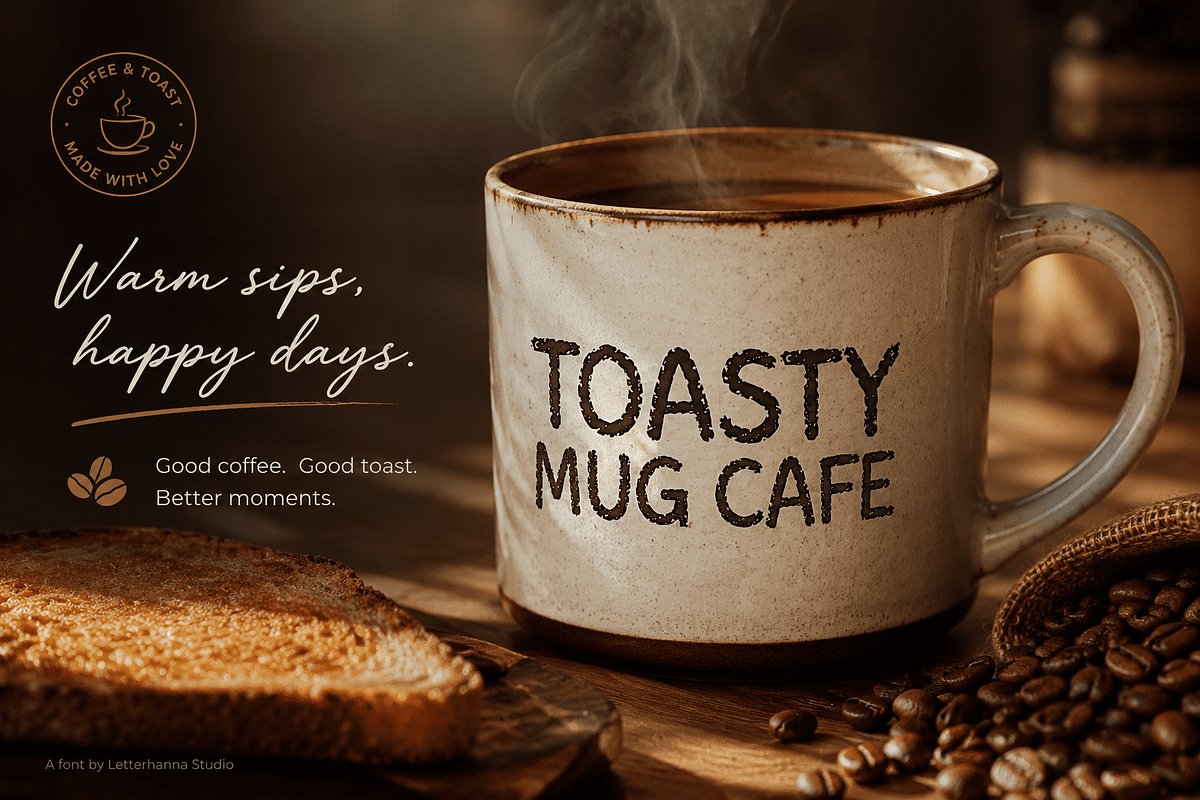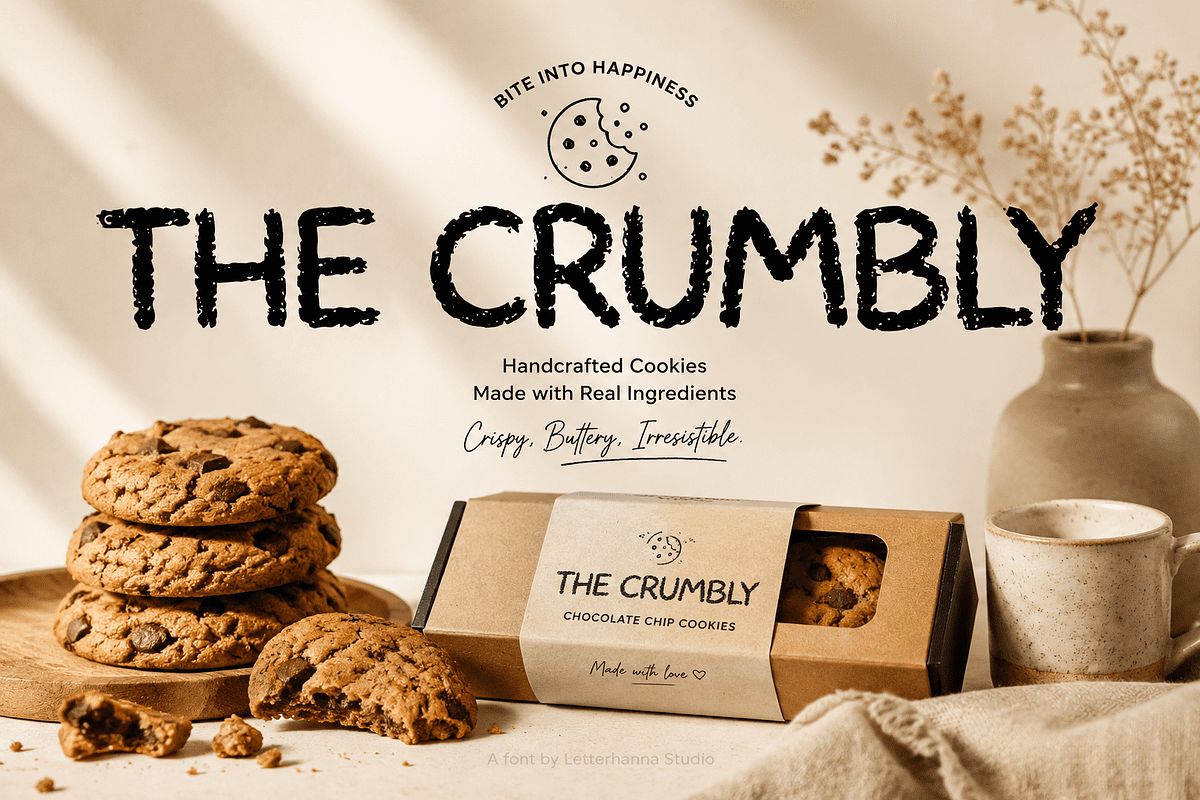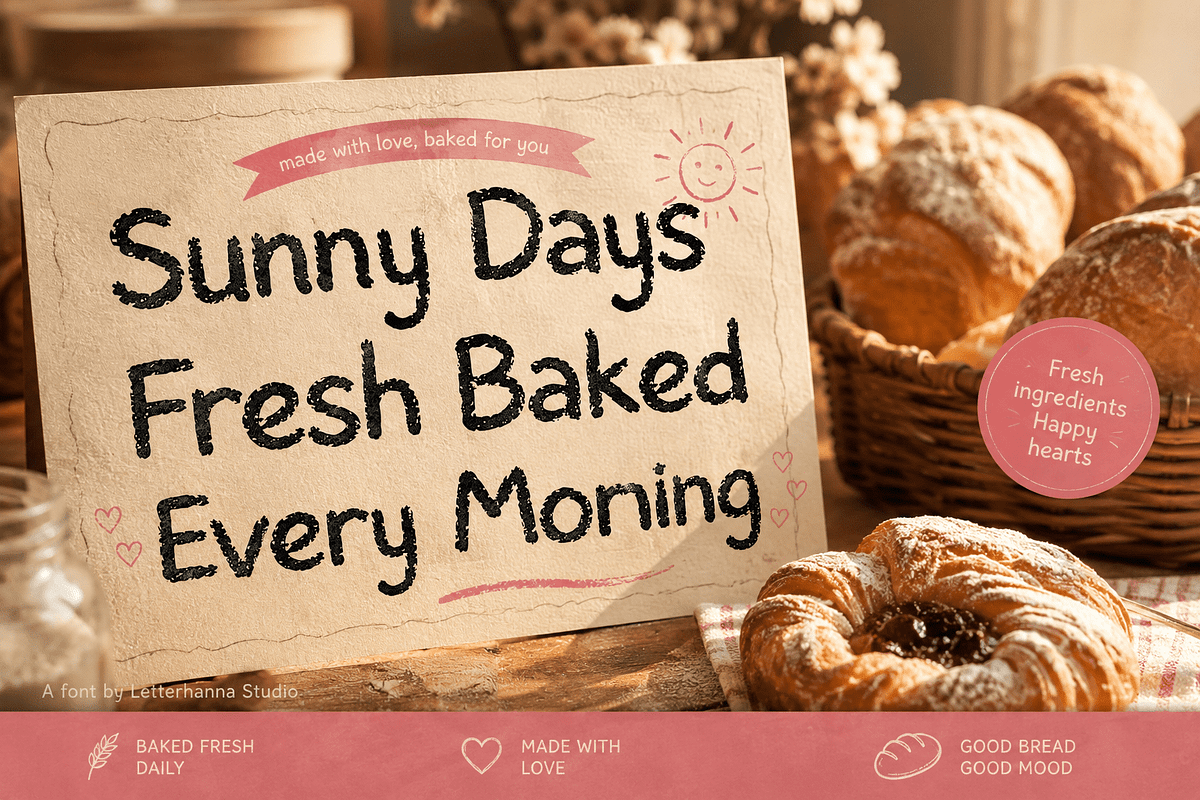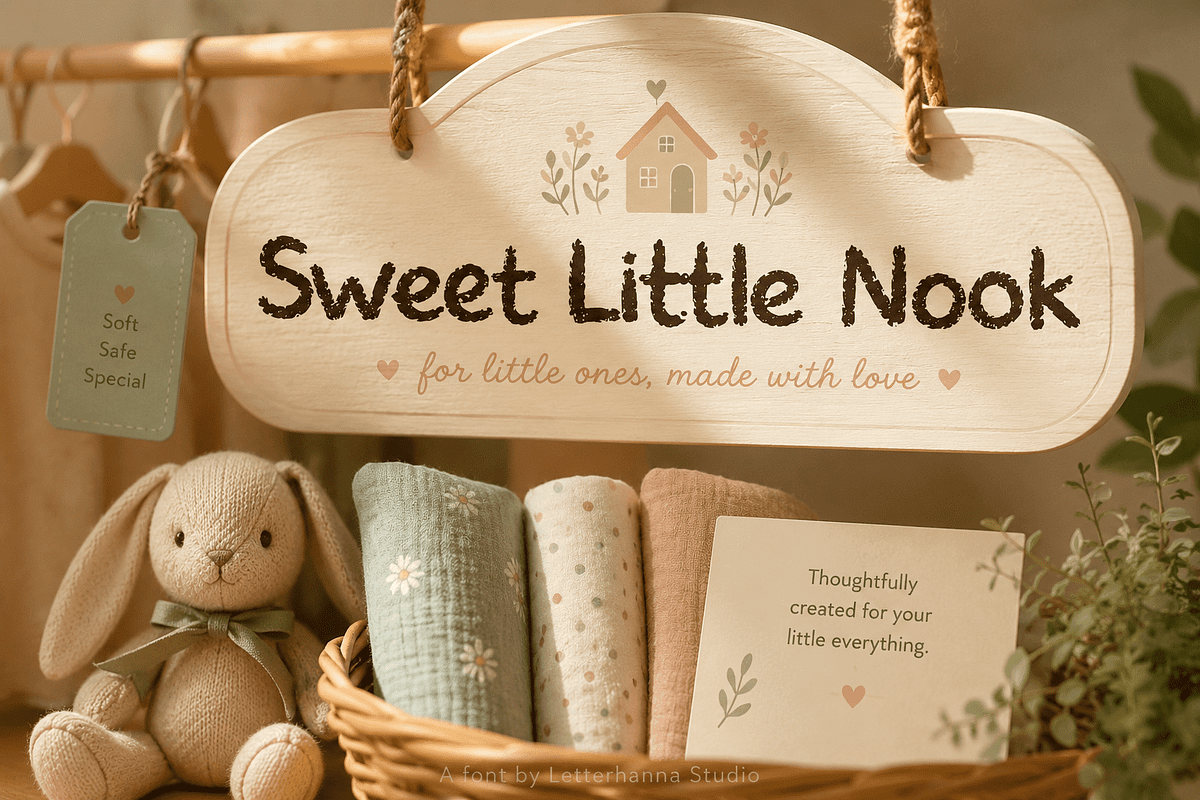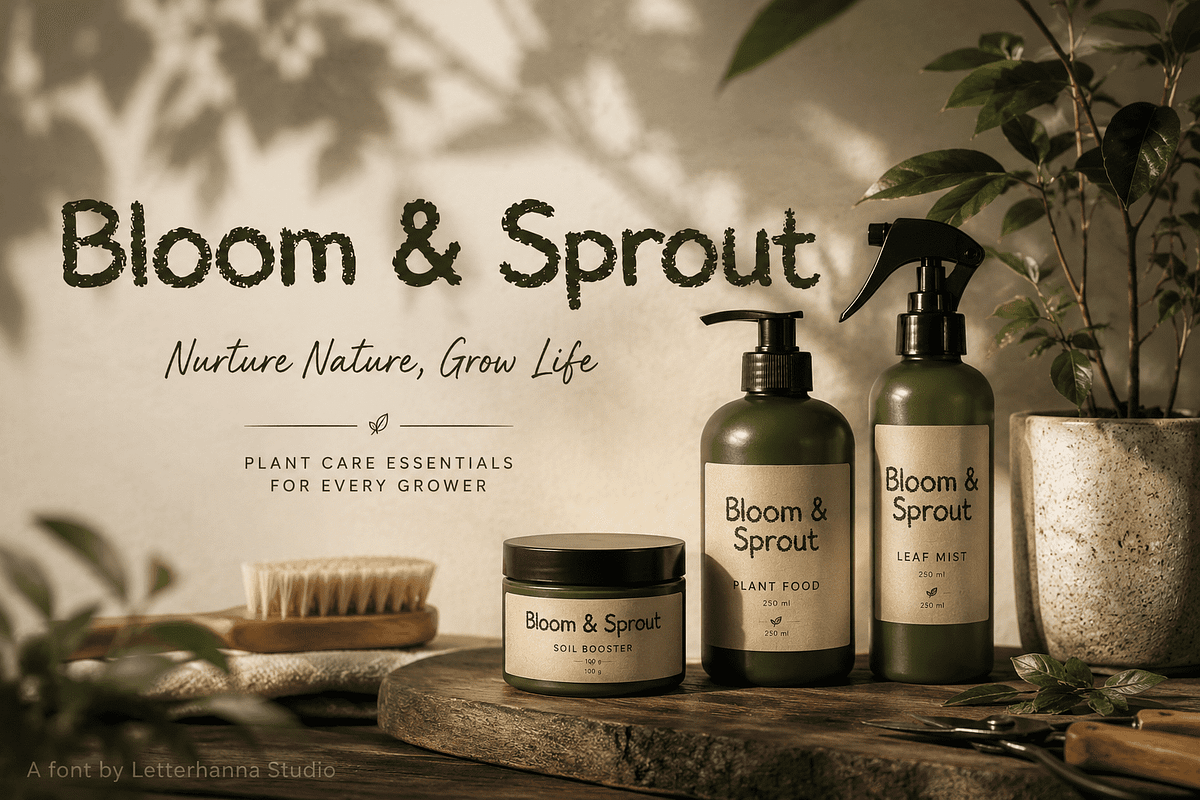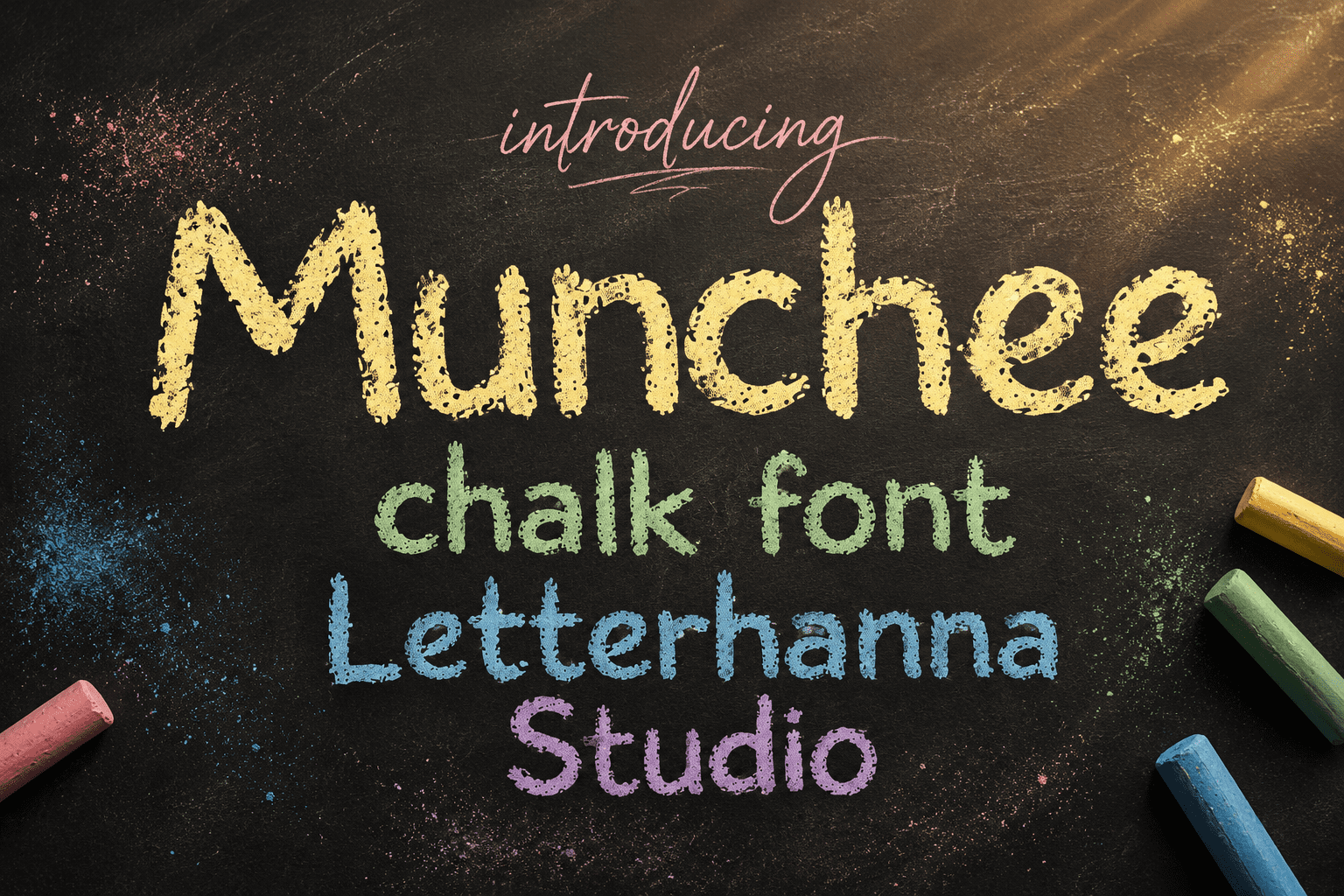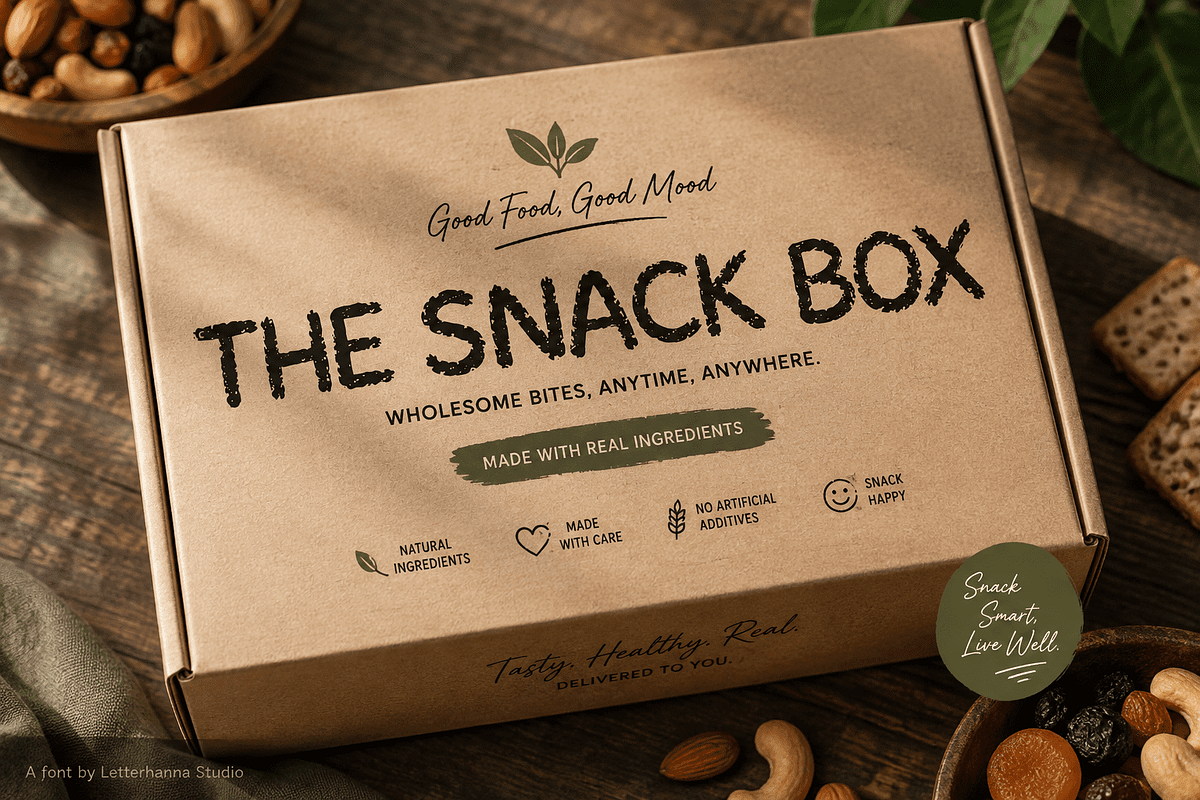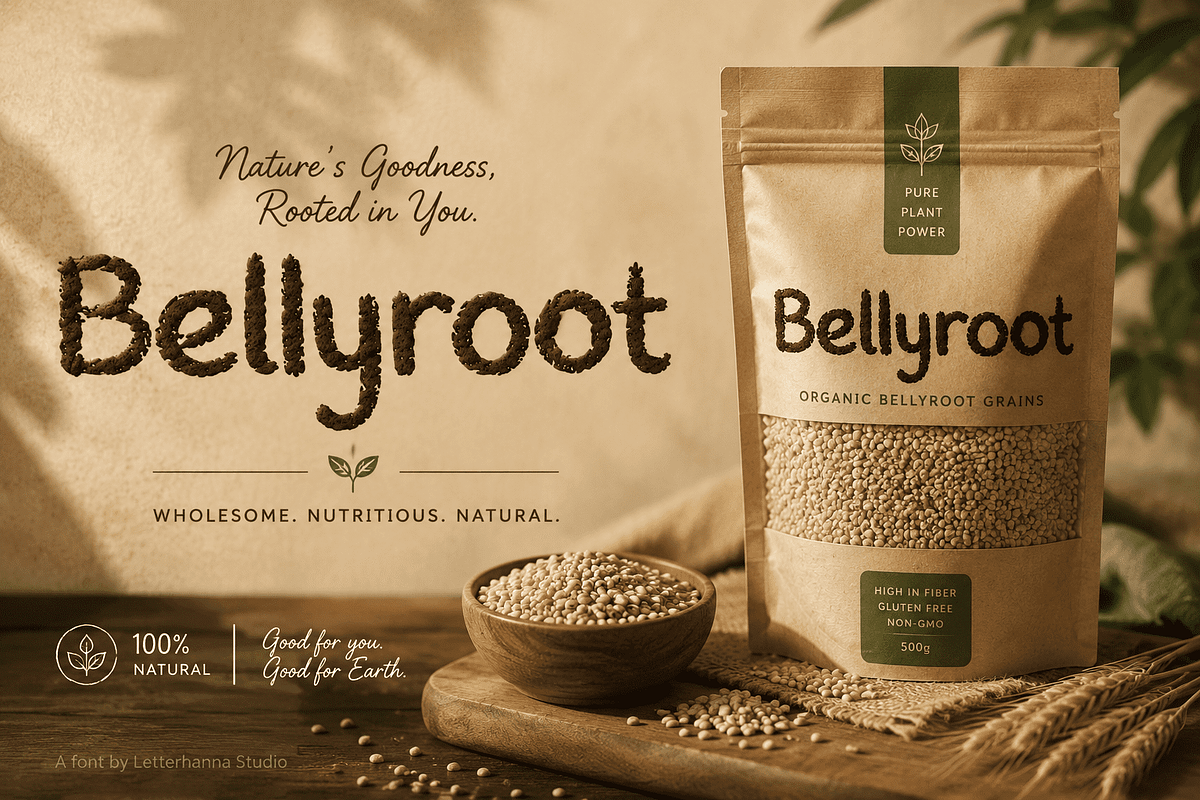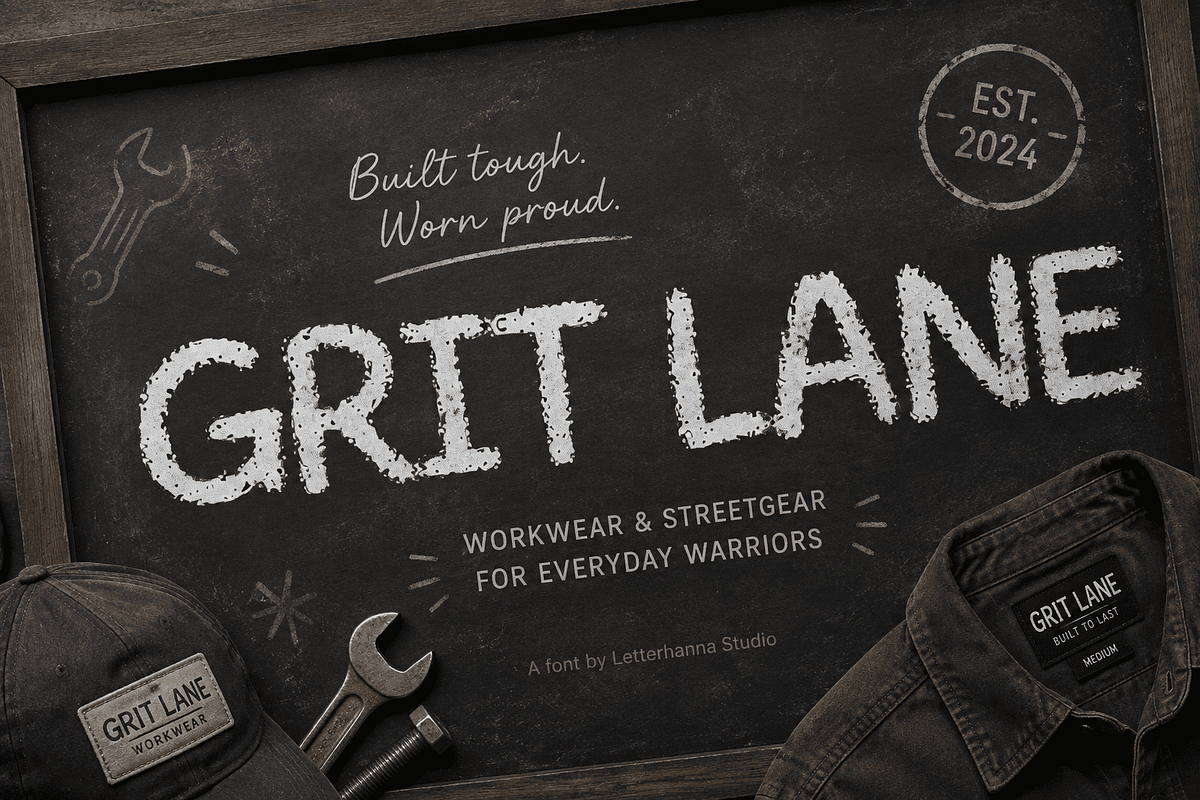
Munchee Playful Chalk Textured Font
Looking for a chalk font that feels alive on the page? Meet Munchee — an expressive, hand-textured typeface built for brands that refuse to be boring.
Every stroke in Munchee looks like it was pressed onto rough paper with real chalk. The edges are rugged, the corners uneven, and the personality unmistakable. It's not just a font — it's a feeling.
Munchee blends the charm of a crayon font with the confidence of expressive display type. Rounded letterforms give it a friendly, approachable tone, perfect for anyone chasing a handmade, human aesthetic.
As a kids font, Munchee shines on birthday invitations, nursery decor, storybook covers, and playful packaging. Its bouncy rhythm makes text feel like it's smiling back at you.
But Munchee isn't limited to kids' projects. Its textured font grain works beautifully for bakery branding, craft markets, coffee shop signage, and DIY product labels — anywhere a design needs warmth over polish.
Great typography tells a story before a single word is read. Munchee whispers nostalgia — sidewalk chalk drawings, classroom bulletin boards, summer afternoons. That emotional hook is what makes a brand memorable.
Pair Munchee with soft pastels or high-contrast black for maximum impact. Use it sparingly on headlines to let its texture breathe.